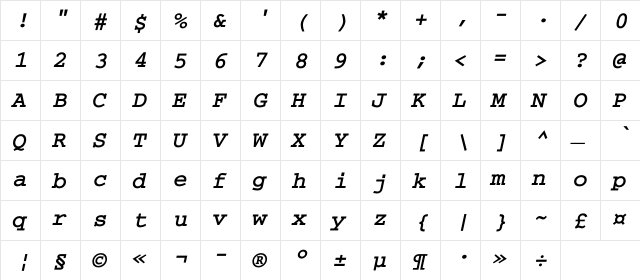
CourierC Bold Italic Font Preview
Design Context for CourierC Typeface
CourierC uses fixed-width spacing throughout, giving it the structured, systematic character associated with coding environments and technical documentation. The slanted form adds forward momentum and visual energy. Its bold stroke weight gives it real presence on the page.